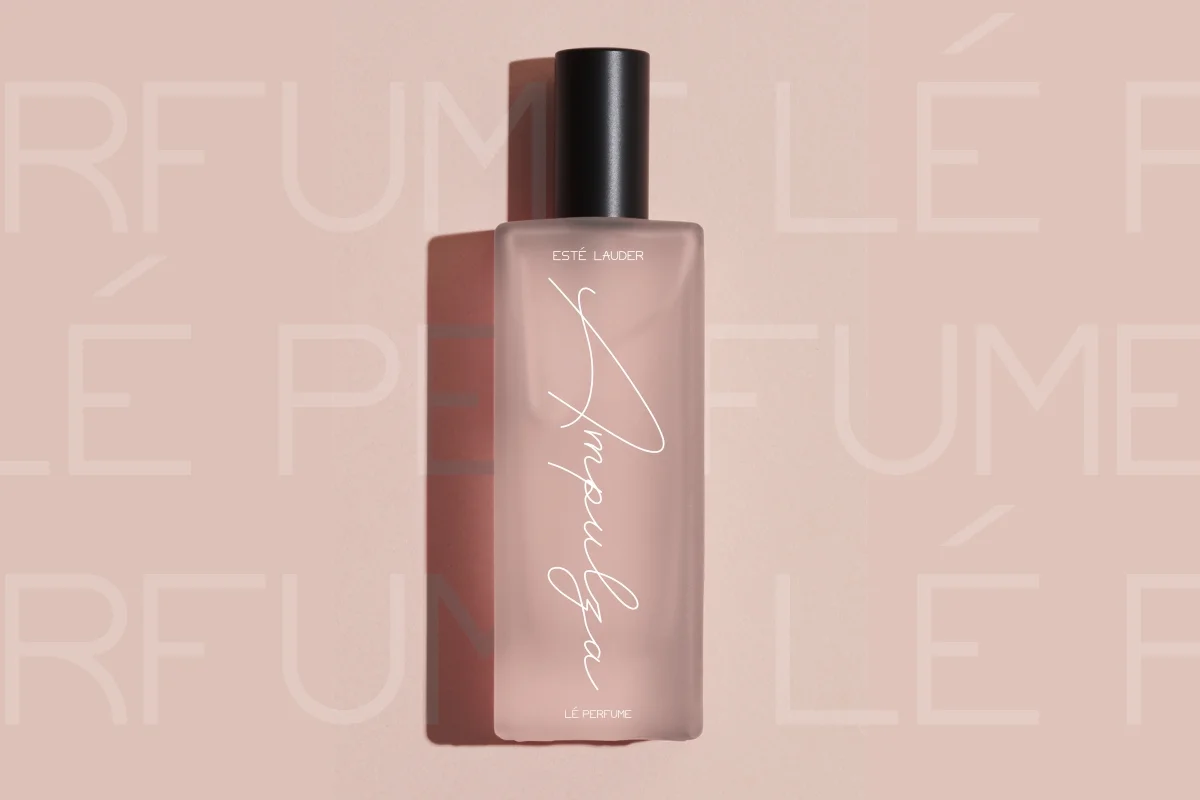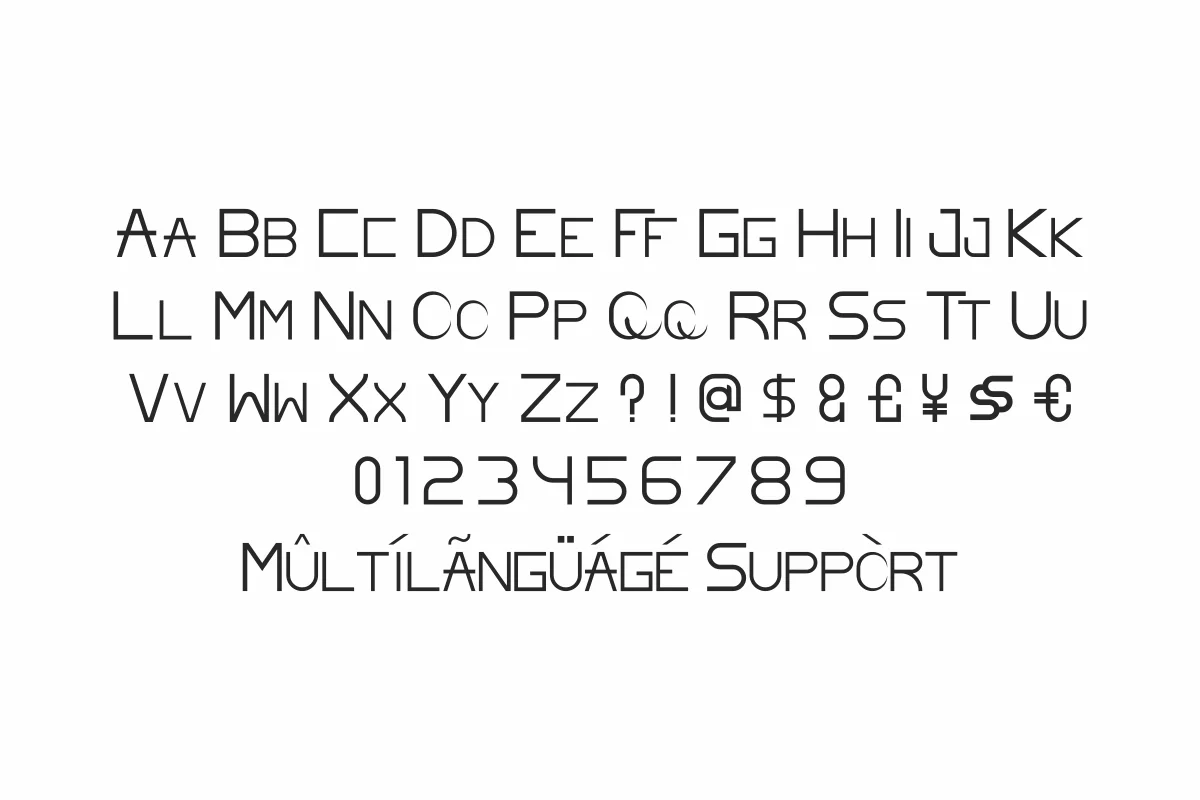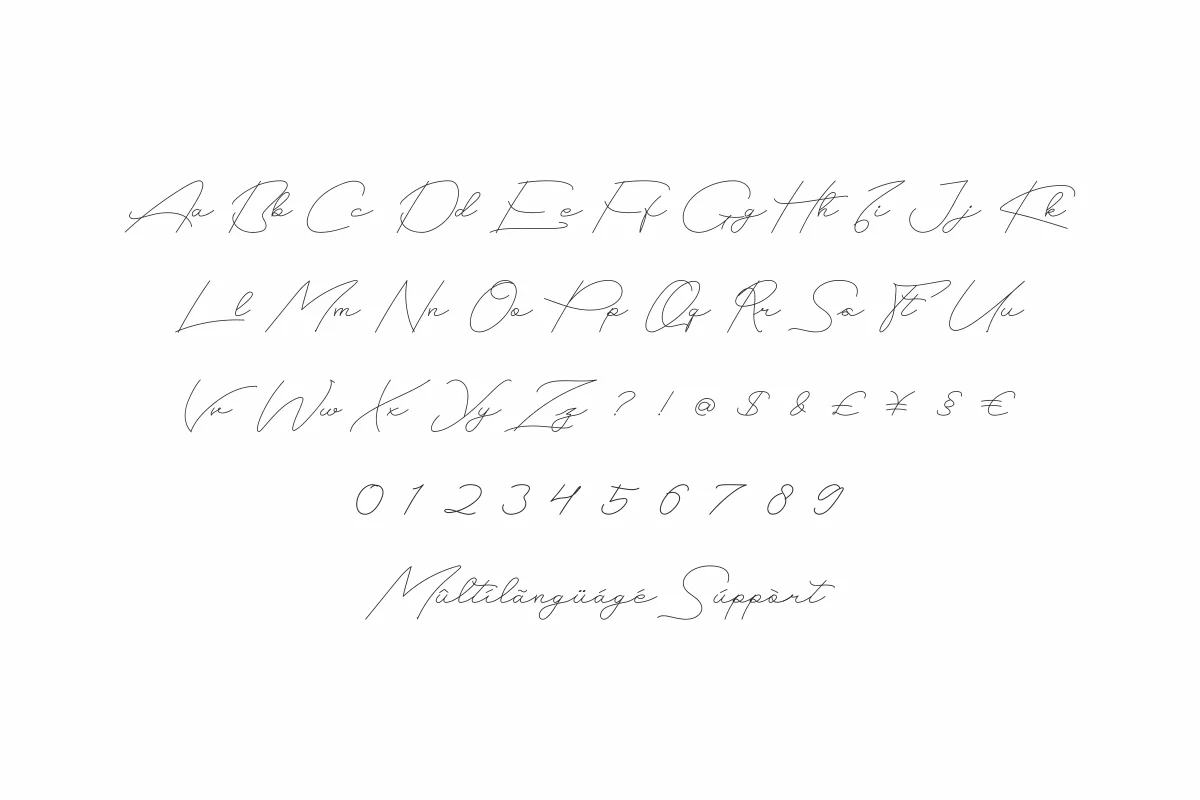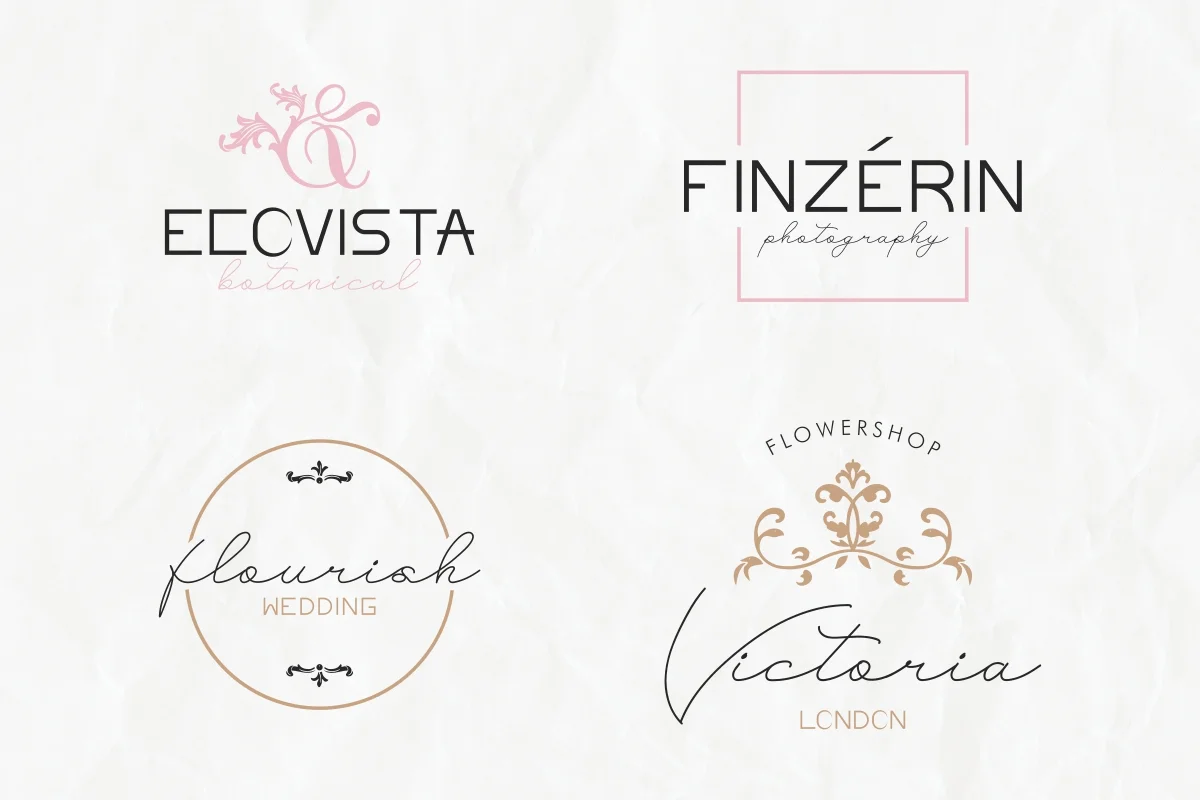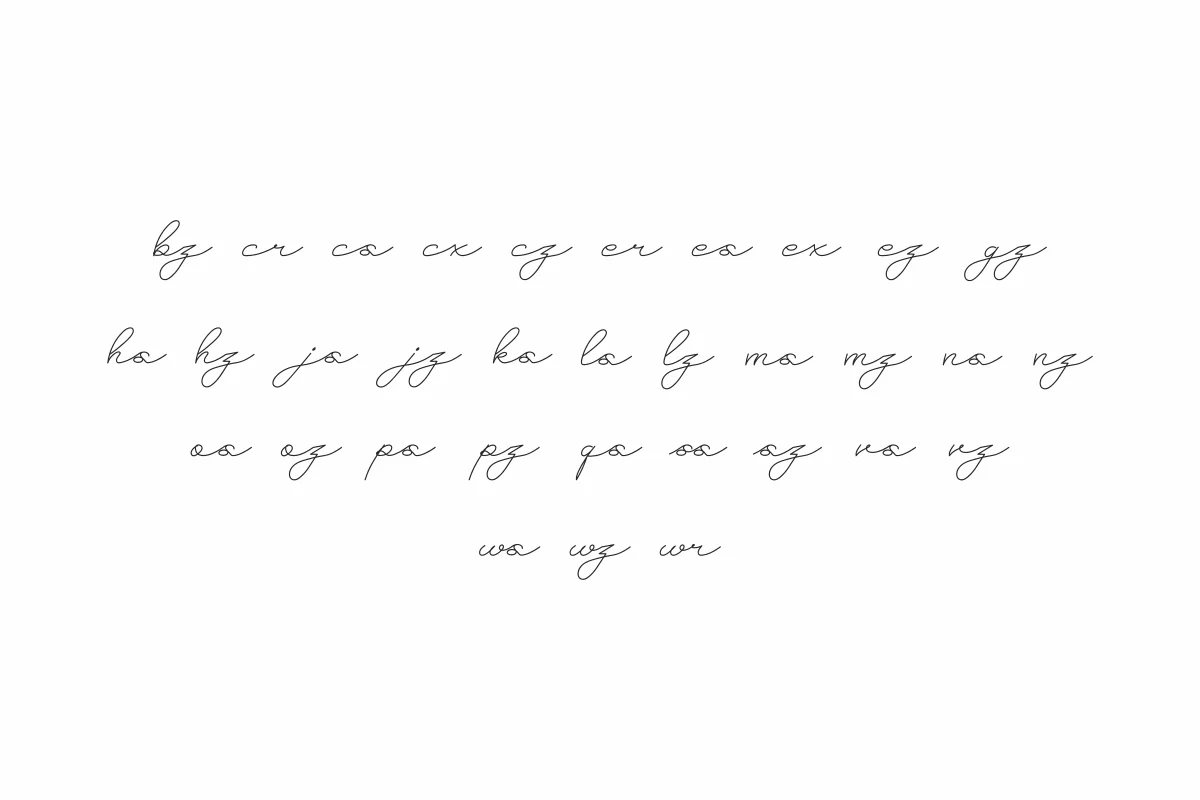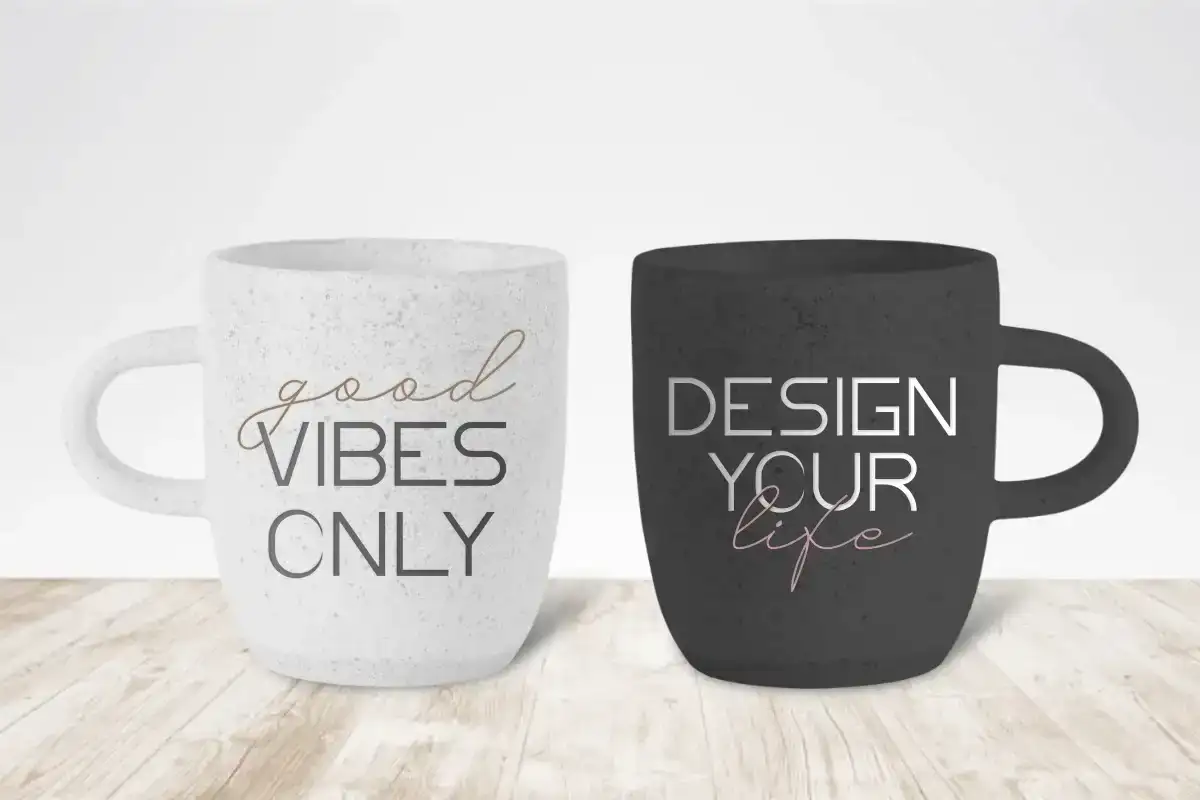
Boelan Sabit Font </strong> is a font duo by NihStudio, with two styles: Signature and Sans Serif.
Boelan Sabit is a font Sans/Serif family with two different styles. Originally designed and made by :Â Yasri and Suci. On the package you will get :
Handcrafted here in our Studio – Indonesia. Boelan Sabit will be great for any projects (require extended license) including : branding, logo, stationery, business card, signage, flyer, brochure etc.
The Boelan Sabit has 2 styles : Sans Serif Display and Signature Script